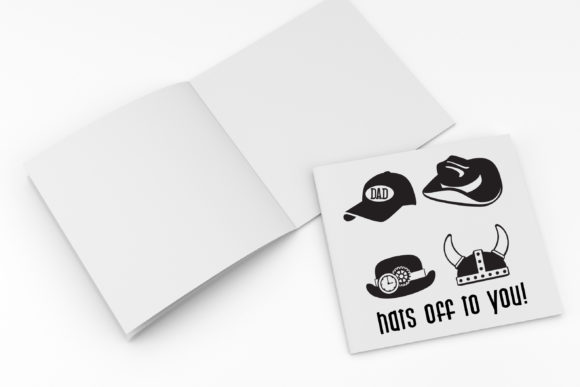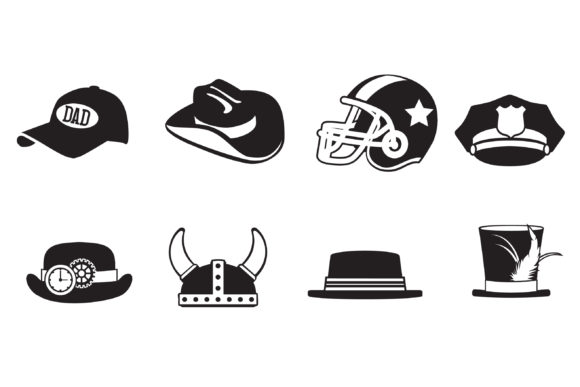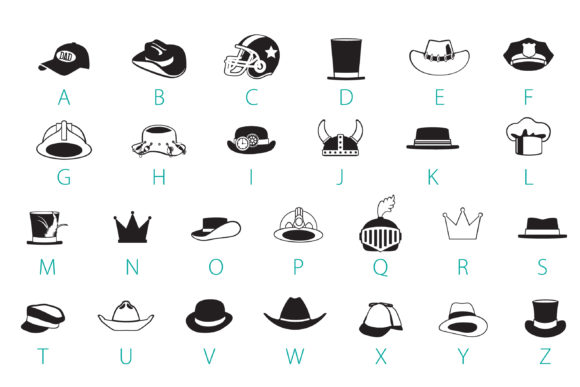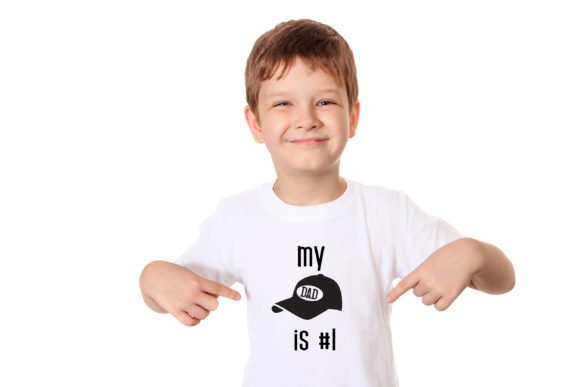
HomeDingbats FontsHats off to Dad Font Dingbats Fonts Hats off to Dad Font FacebookXPinterestWhatsApp 1 of 5 About Hats off to Dad Font This dingbat font has 26 hats that dad typically wears. This stunning font celebrates all things daddy! DOWNLOAD NOW People also explored Happy Wedding School of Rock Font Florena Font Molly Font Bankstory Font Prosciutto Font Carttiny Nadeen Font Violeta Font Naquia Font 341 0 TagsHats off to Dad Font Previous articleDad Props FontNext articleRustic Dad Font LEAVE A REPLY Cancel reply Comment: Please enter your comment! Name:* Please enter your name here Email:* You have entered an incorrect email address! Please enter your email address here Website: Save my name, email, and website in this browser for the next time I comment. Personal Use Free Breather Personal Use Free Read more about this font Rothwell Personal Use Free Read more about this font Welcome Creative Personal Use Free Read more about this font Little Things Duo Personal Use Free Read more about this font BLOG Top 10 Handwritten Fonts That Elevate Your Designs Top 10 Handwritten Fonts That Will Elevate Your Designs Handwritten fonts bring a warm, personal touch to every creative project. Whether you're designing logos, invitations,... Where to Buy American Fonts Online in 2024 To increase your work productivity, choose the most readable fonts. 5 Fonts That Will Dominate Design Trends in 2026